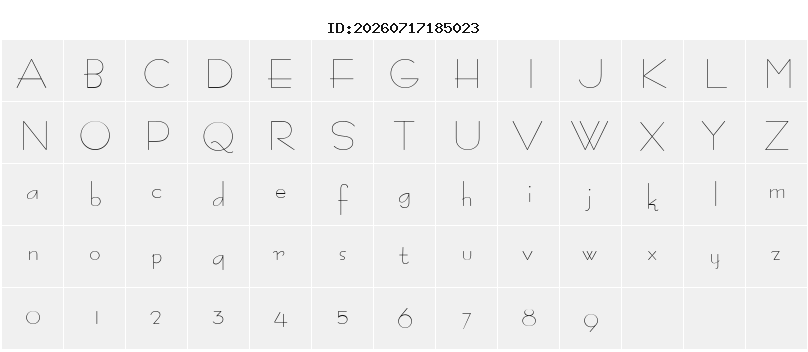
Bernardo Moda Preview
• Font Name: Bernardo Moda
• Full Font Name: BernardoModa
About Bernardo Moda.ttf
Bernardo Moda.ttf is a modern, elegant sans-serif font designed for ultimate readability and visual harmony. Perfect for branding, headlines, web design, and print materials.